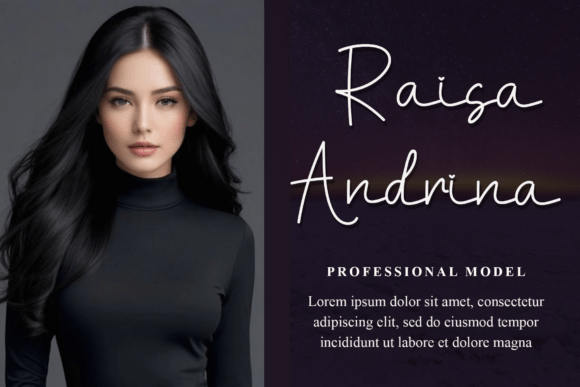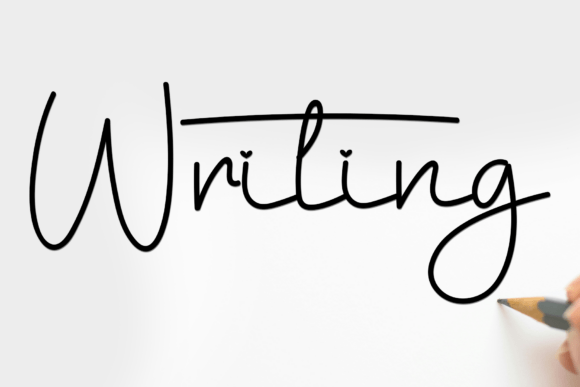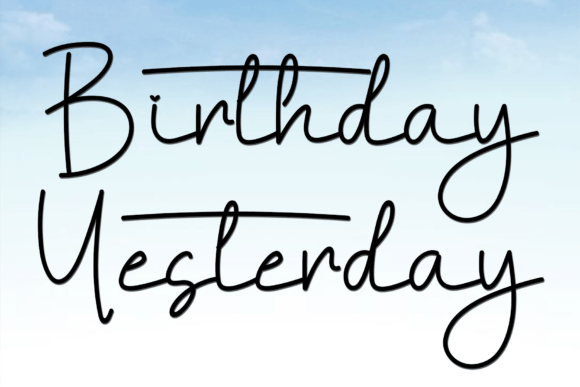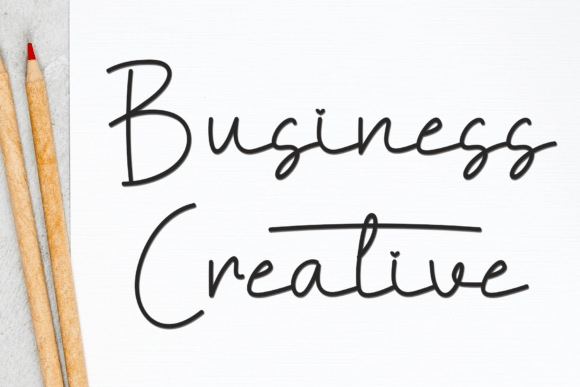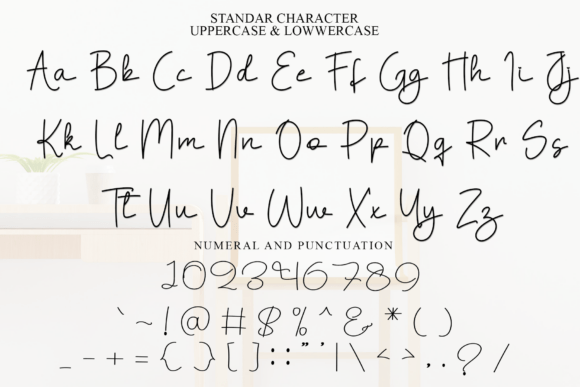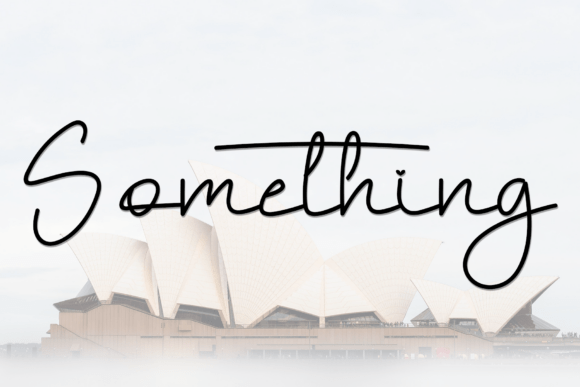
Introduction to Adventure Vocation Font
Adventure Vocation is a festive and merry typeface that captures the spirit of the holiday season.
Key Features of Adventure Vocation Font